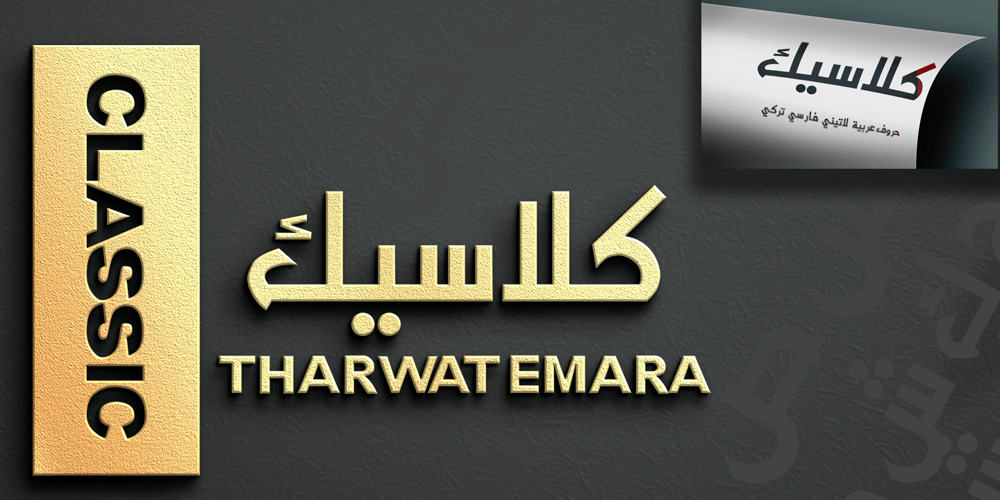
TE Classic Tharwat Emara
TE Classic Tharwat Emara font
TE Classic Tharwat Emara Font Family was designed by Tharwat Mohamed Emara and published by Tharwat Emara. TE Classic Tharwat Emara contains 2 styles and family package options. This font may be conservative and classic, but also may be more playful and modern. It is good for theater or art posters and for modern music, web-pictures or vinyl covers. Of course it also will be good for coffee shops, cafe’s, restaurants, magazine’s headers, signs or gift/post cards and weddings.Try to use it in your beauty or travel blogs, you will see how many options you will have with stylish CLASSIC